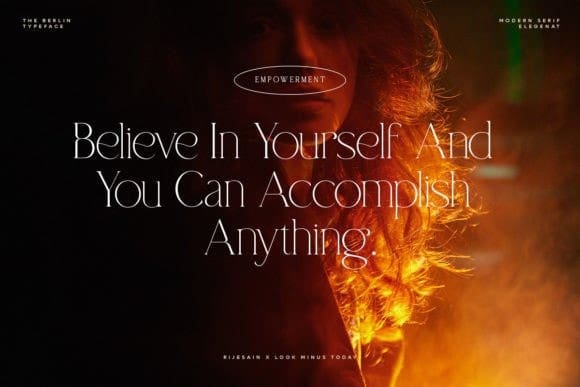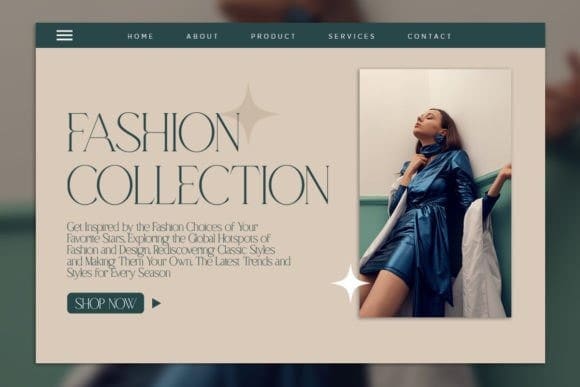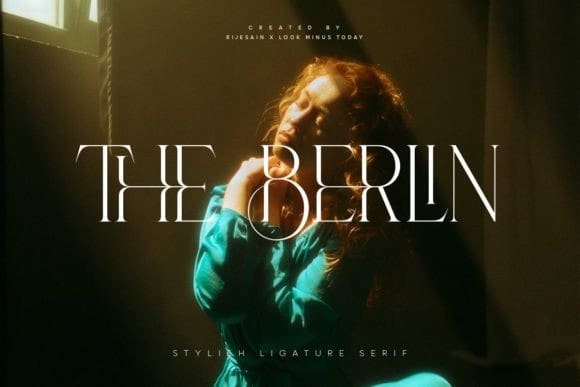
The Berlin Font
The Berlin Font is a font that seamlessly blends modern and vintage styles for a unique and stylish look. With its elegant and distinctive serifs, Retro Serif adds a touch of sophistication to any design. Its clean and readable letterforms are perfect for branding, headlines, and editorial projects. Retro Serif is the perfect choice for those looking to add a touch of timeless charm to their designs.